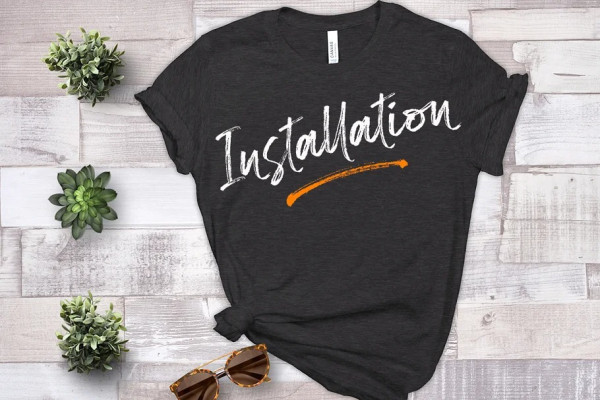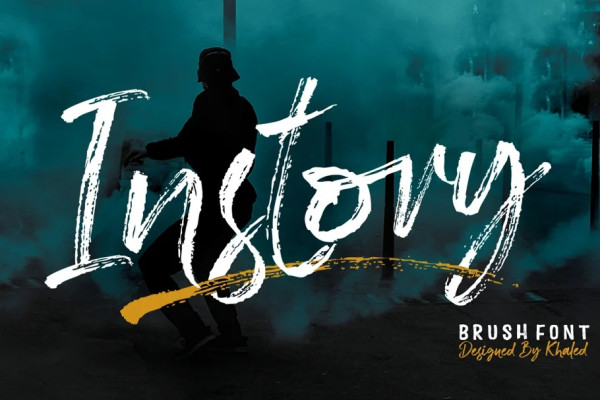
Instory Brush Font
Instory Brush Font, is a new modern brush font with an irregular baseline, a contemporary approach to design, handmade natural and suitable for use in title design such as clothing, invitations, book titles, stationery designs, quotes, branding, logos, T-shirts, packaging designs, posters, and more.Complete with uppercase and lowercase letters, as well as multi-lingual support, numbers, punctuation, Instory also provides some ligatures and swash.